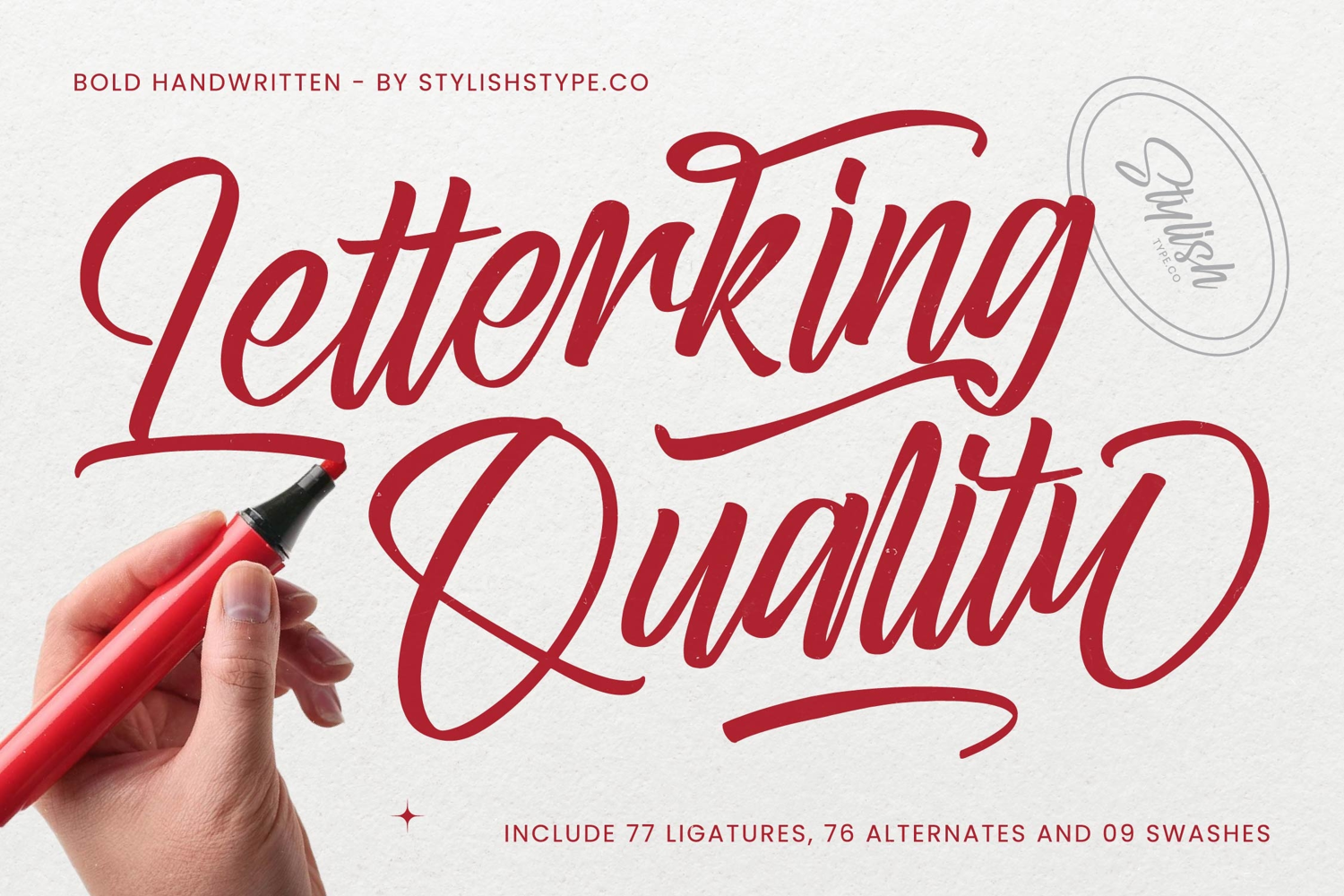
Letterking Quality - Bold Handwritten Font
Letterking Quality Italic
Letterking Quality
Letterking Quality - Bold Handwritten Font includes a vast array of stylistic alternates designed to enhance realism. With 77 standard ligatures, 76 alternates, and 09 expressive swashes, designers can achieve the look of true, hand-lettered craftsmanship across any wordmark. This extensive library offers unmatched design flexibility, allowing users to craft genuinely unique and unforgettable titles and slogans.